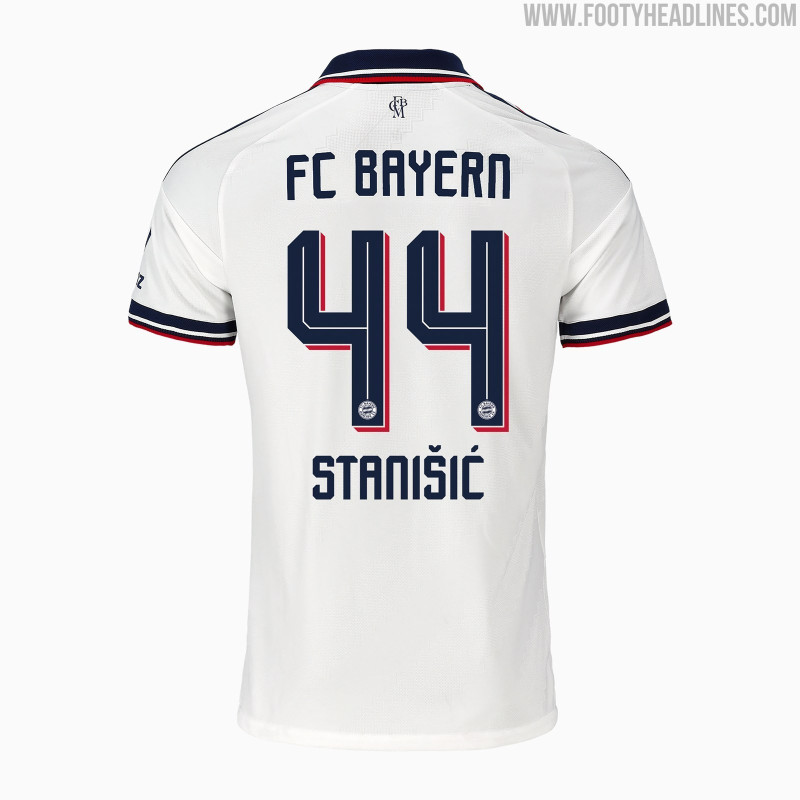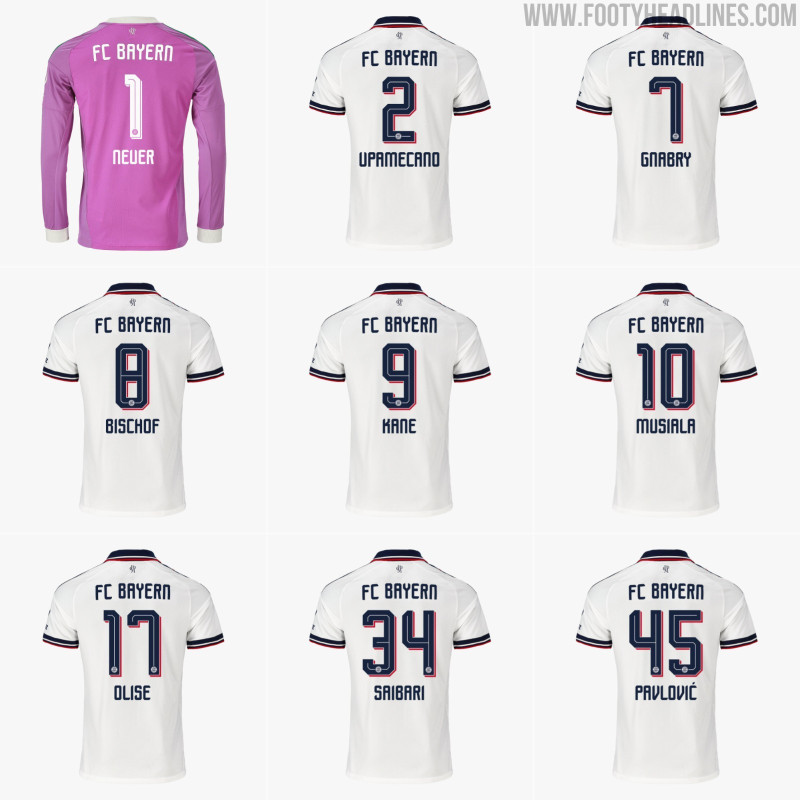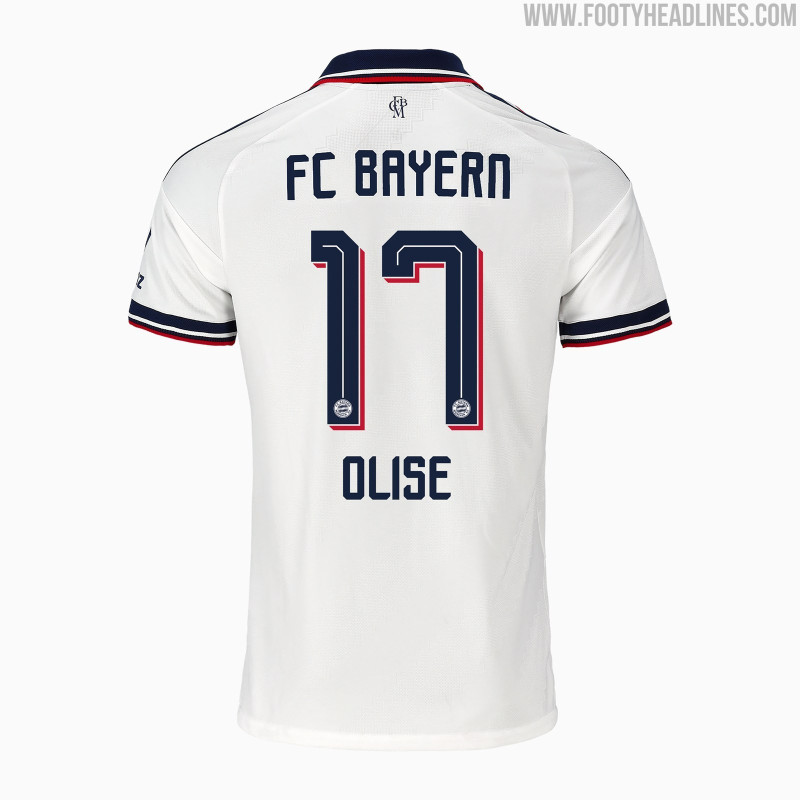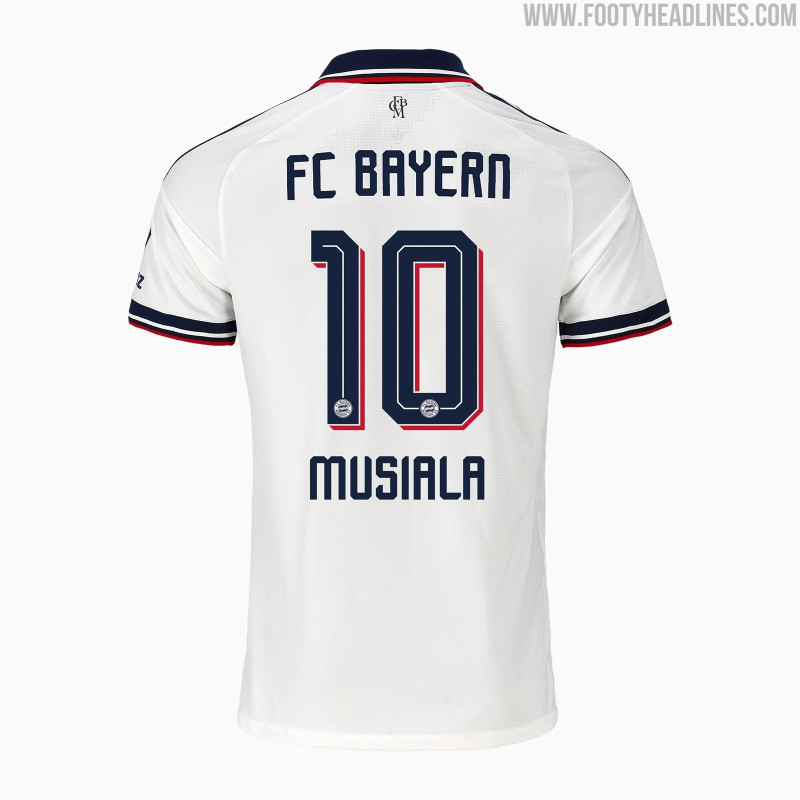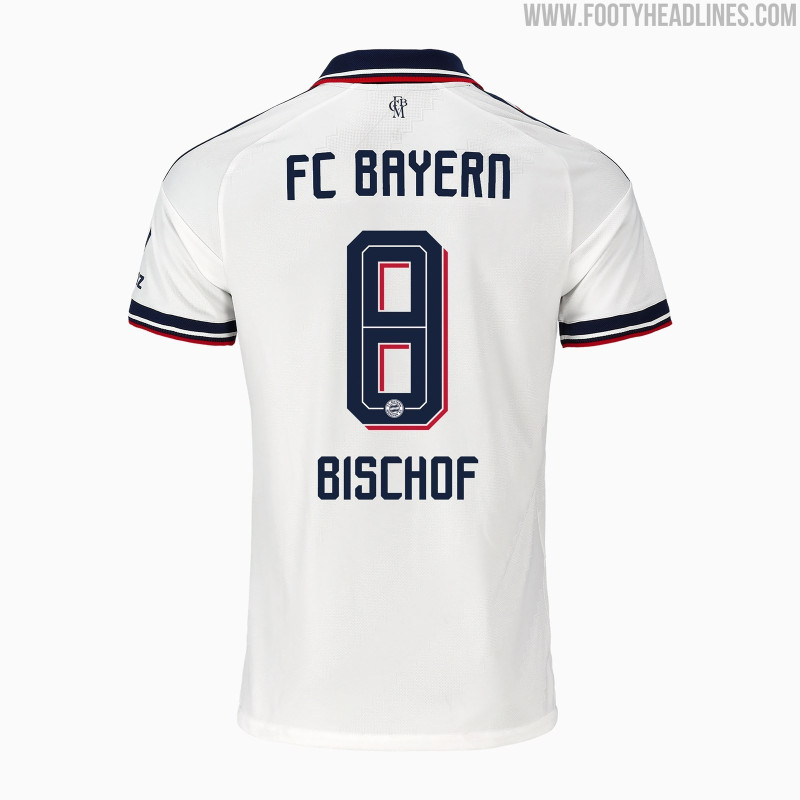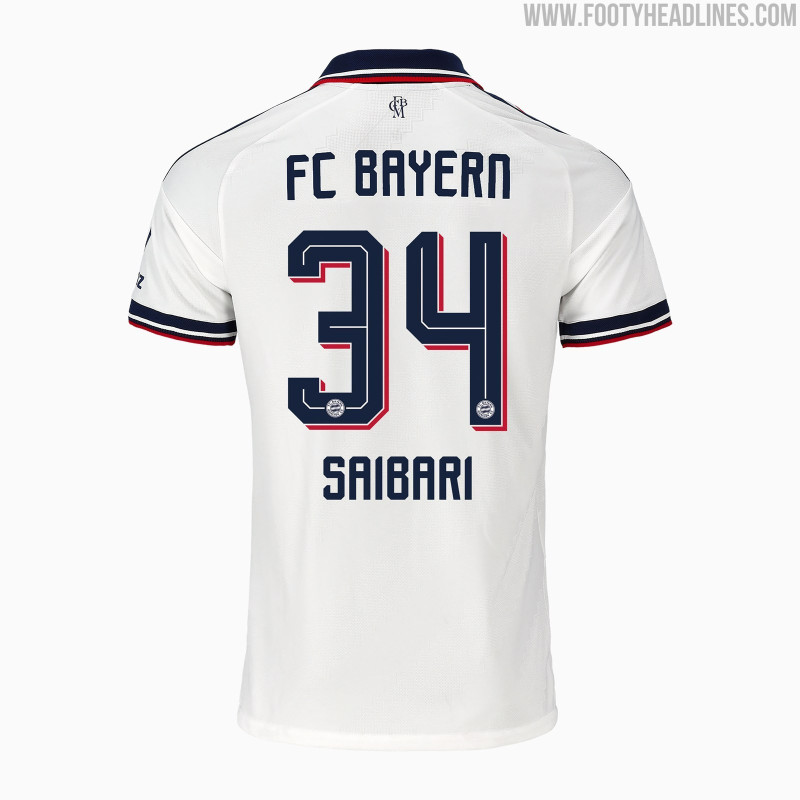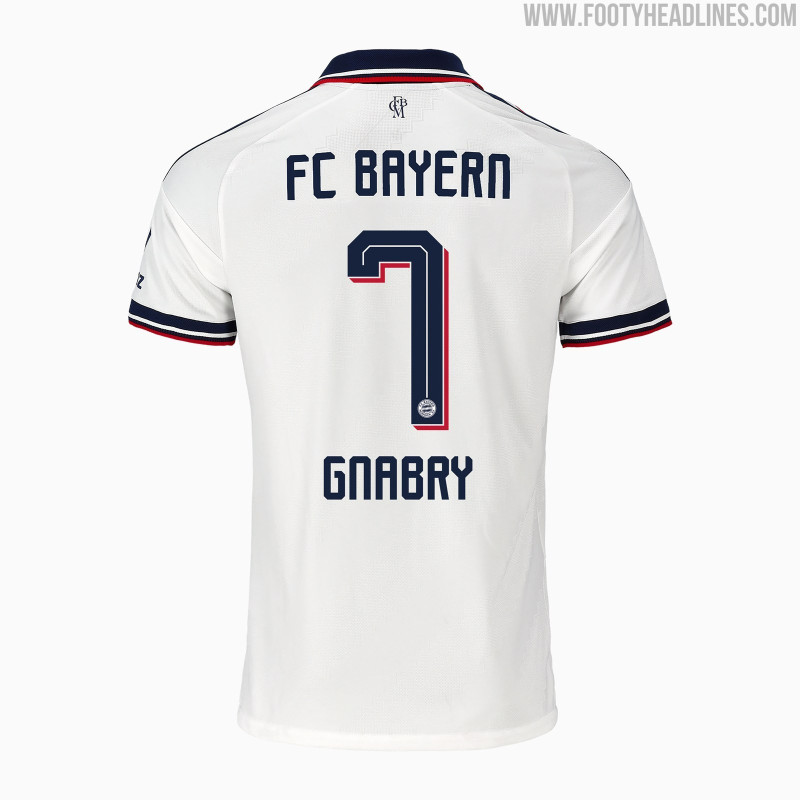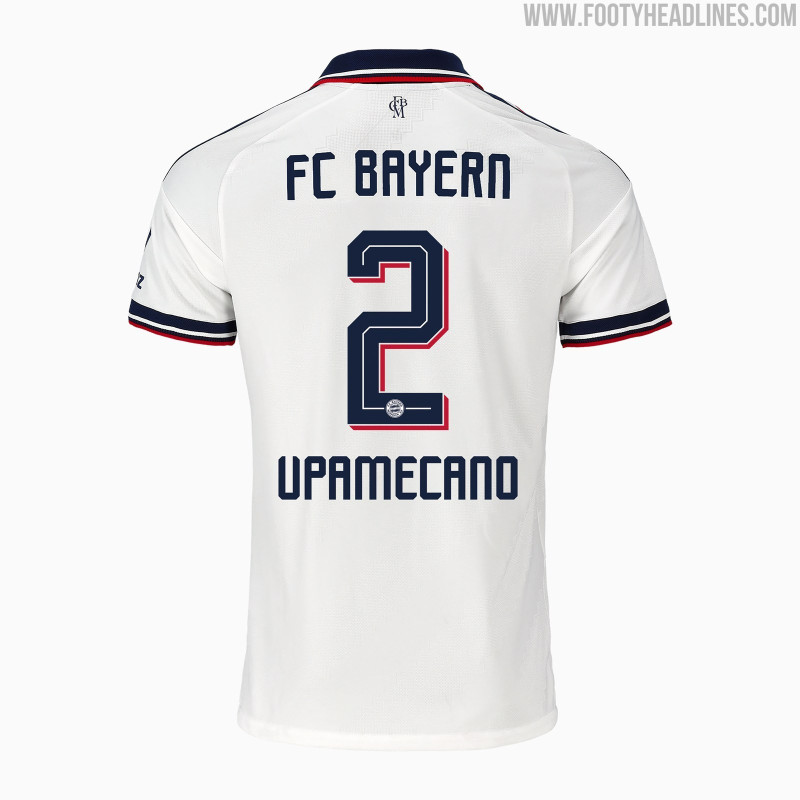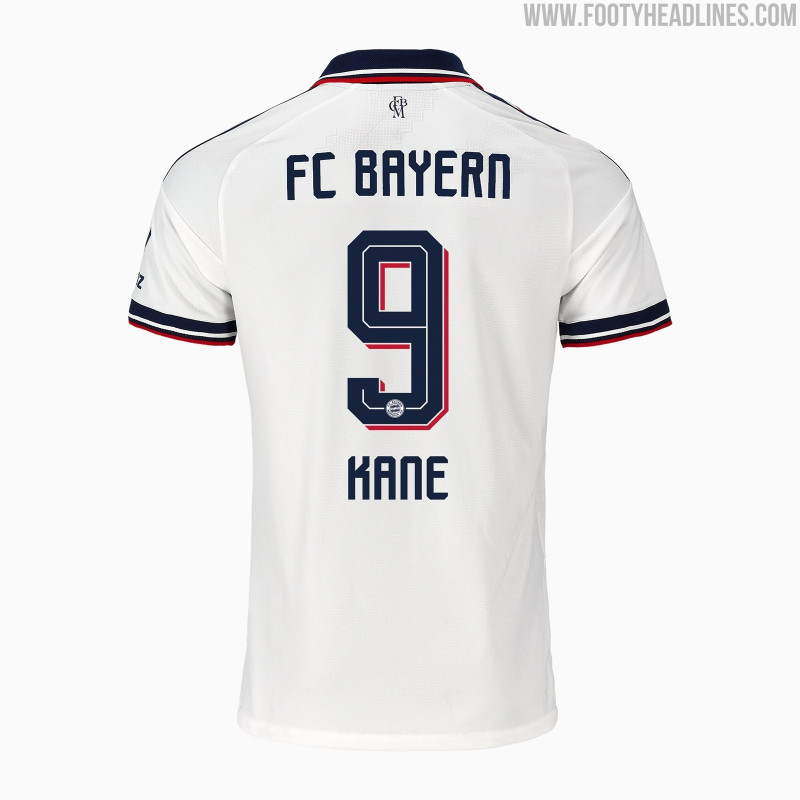
Bayern München 26-27 Away Kit Font Released
- Custom Font Released: The custom font for the Bayern München 26-27 away kit has been officially released, complementing the new uniform's design.
- Kit Design Elements: The new away kit features a white base with red and navy accents, notably bringing back the classic e.V. club crest and the Adidas Trefoil logo, which inspired the retro aesthetic.
- Font Similarity to Adidas World Cup: The Bayern München 26-27 away kit font is almost identical to the streamlined Adidas 2026 World Cup font, known as the Trefoil Standard, sharing a blocky structure and inline detailing.
Following the official launch of the Bayern München 26-27 away kit, we have a complete look at the custom font used for the new uniform. The shirt itself features a white base with red and navy accents, notably bringing back the classic e.V. club crest alongside the Adidas Trefoil logo. The player names and numbers on the back perfectly complement this retro-inspired aesthetic.
Bayern München 26-27 Away Kit Font
The Bayern München 26-27 away kit font is almost identical to the streamlined Adidas 2026 World Cup font, often referred to as the Trefoil Standard.
A direct comparison between a standard Adidas Trefoil Messi jersey and the new Musiala shirt highlights the heavily shared typography. It utilizes the exact same blocky, classic structure and inline detailing, adapting the colorway to match Bayern's navy and red design. The 1, for example, has a minor difference at the bottom.